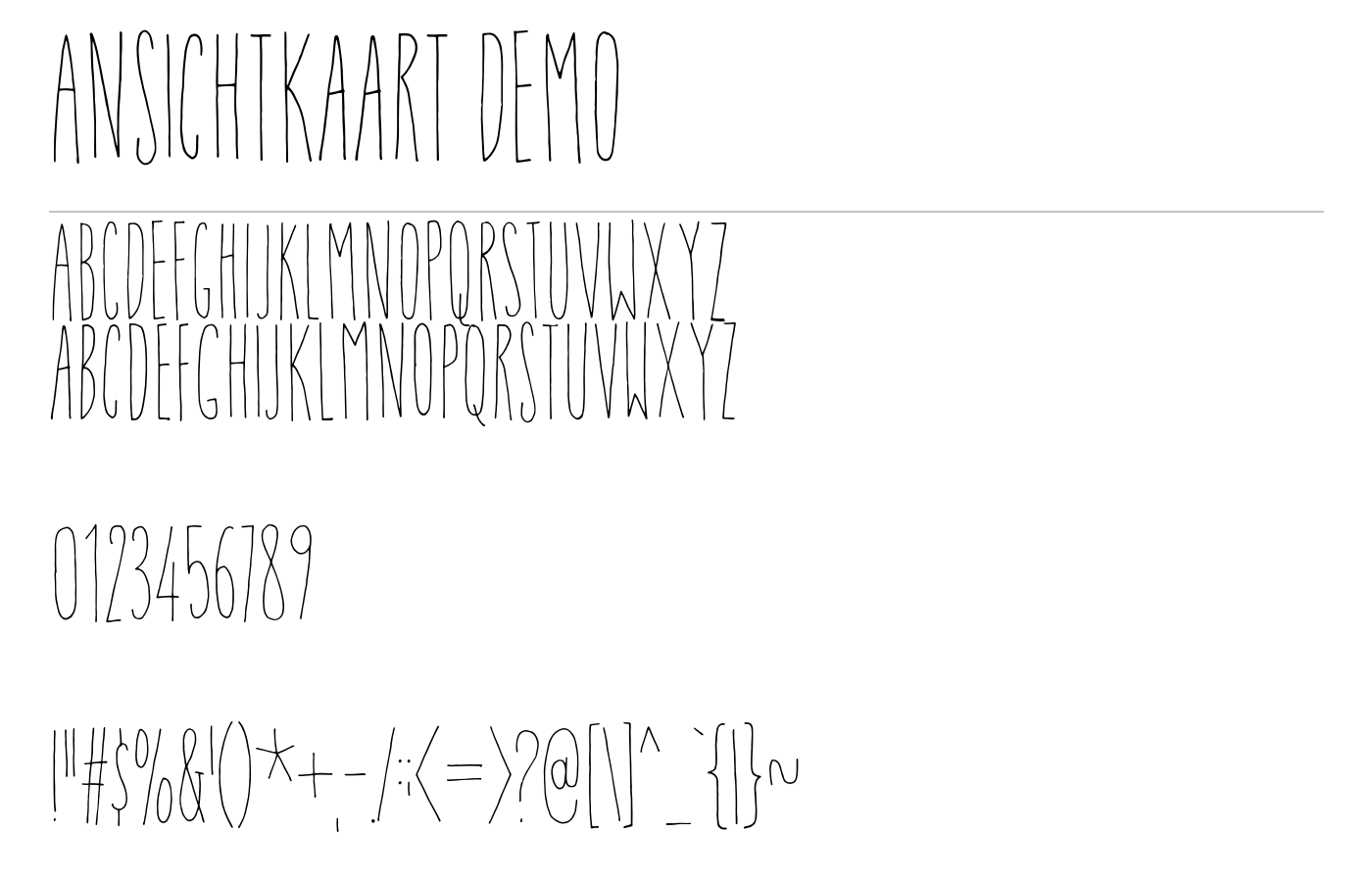
Ansichtkaart DEMO is a slender, tall sans serif font with a hand-drawn, quirky feel that adds a playful yet sophisticated charm. Its thin, irregular strokes and narrow letterforms make it ideal for creative projects, headlines, and branding that seek an artistic, unique vibe. This font works beautifully where a light, whimsical touch is desired without sacrificing clarity.
Ansichtkaart DEMO Font
About Ansichtkaart DEMO Font